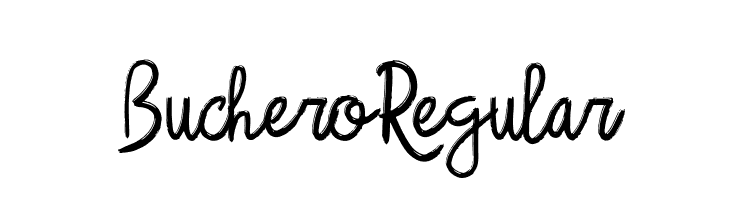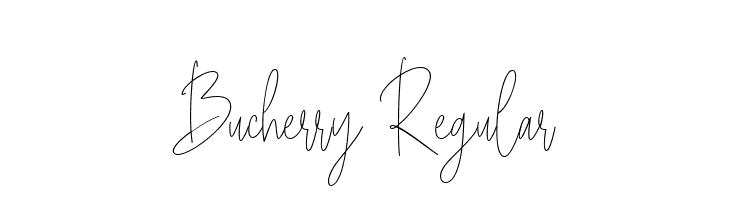
• Buchero Regular schriftart
A lively handwritten font with fluid, playful strokes.
• Bucherry Regular schriftart
A delicate, handwritten cursive font with an elegant and airy feel.
• Buchery schriftart
A bold, dynamic brush script font with expressive, hand-painted strokes.
• BuchinFreePersonalUseOnly-Regul schriftart
A bold, handwritten-style font with a playful and dynamic appearance.
• Buckerley schriftart
A classic script font with elegant, flowing cursive letters.
• Buckerley schriftart
A stylish, cursive font with elegant curves and a dynamic slant.
• Bucket schriftart
A playful, bold font with a hand-drawn, informal style.
• Buckey schriftart
A bold, dynamic script font with a fluid, connected style.
• Buckingham schriftart
A bold, gothic-inspired font with sharp, angular lines and a strong presence.
• Buckingham Italic schriftart
A bold, italicized font with sharp, angular lines and high contrast.